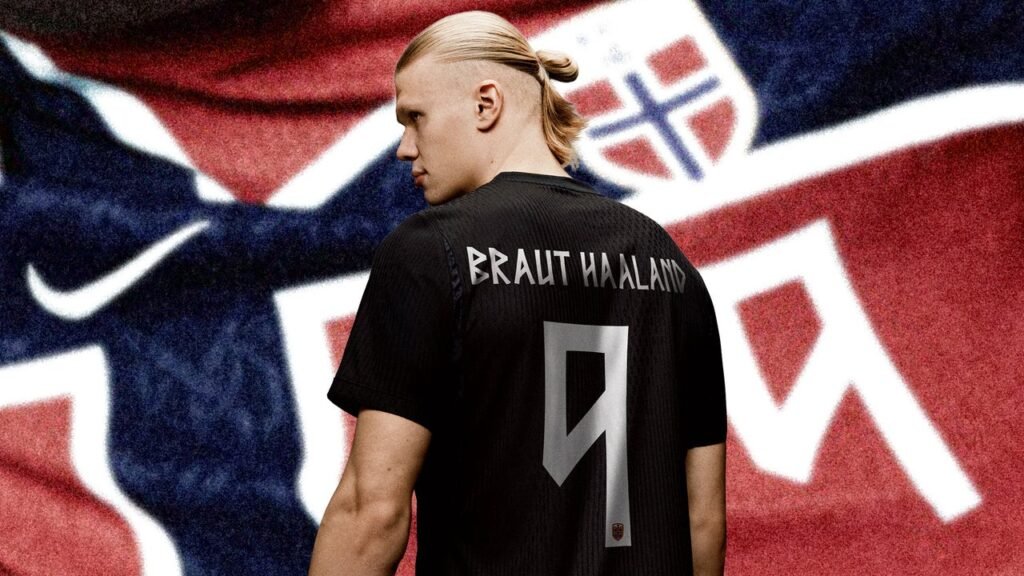
When Norway’s national soccer team first experimented with kits that used a font inspired by the runic alphabet, an ancient Scandinavian written language used by Vikings, it was too hard to read.
Characters on Norway’s 2024 jerseys were jagged, sharp, and not easily discernible. On the country’s home kits, they were beveled and even more difficult to make out, baffling plenty of first-time viewers. Plus, they didn’t adhere to FIFA’s rules for the typography of World Cup kits to be “clearly legible and distinguishable from a distance” for players, officials, spectators, and the media.
So for the 2026 World Cup, Norway’s first appearance in the tournament since 1998, Nike, which makes their kits, helped the team design a new font that balances readability with heritage.
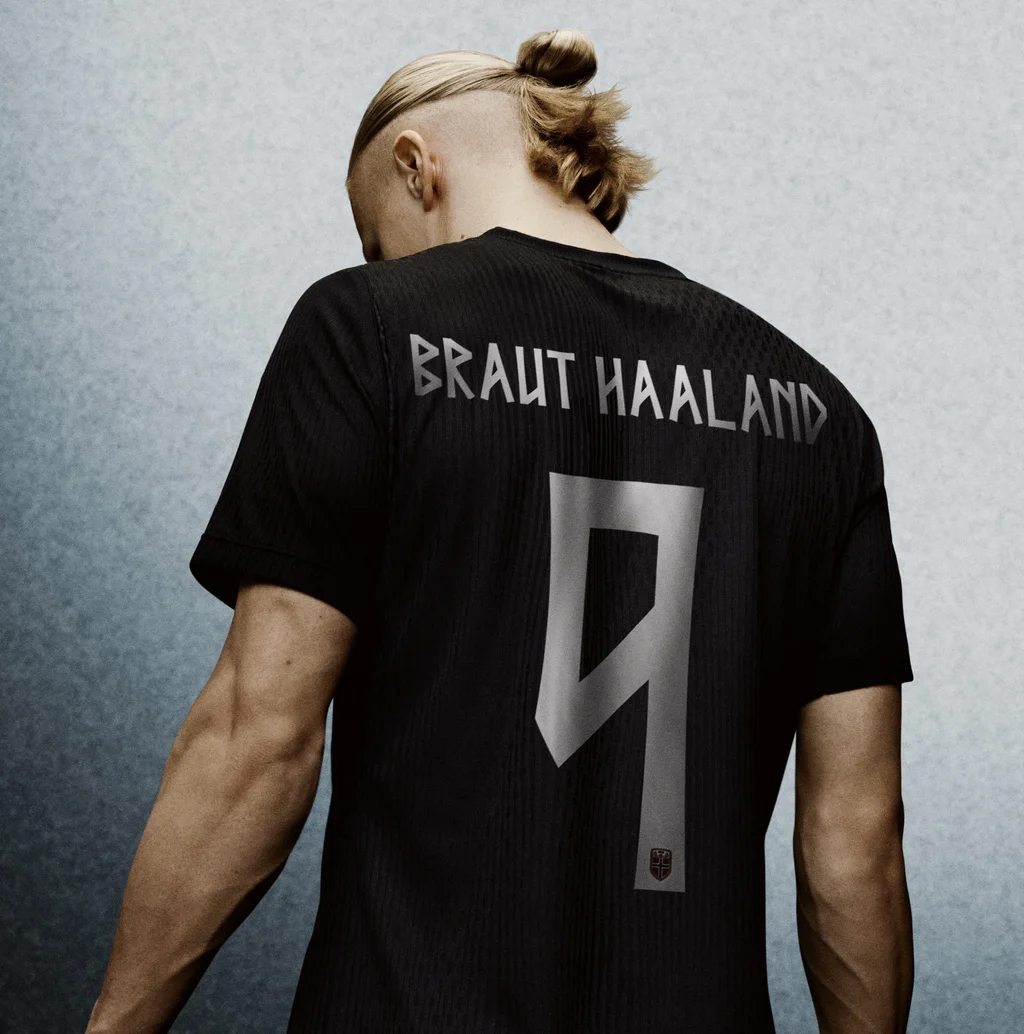
The typeface used for Norway’s uniforms is called Taakeferd, a Norwegian word meaning “journey through the fog.” It nods to the country’s return to the World Cup for the first time in 28 years.
FIFA regulations also specify the sizing and placement of player names and numbers on uniforms, and they must be in Latin characters, though they can use diacritical marks, like accents and umlauts.
With Norway headed to the quarterfinals Saturday against England, it’s clear Taakeferd passed the test. The typeface is composed of vertical or diagonal lines, which makes for distinctive, triangular shapes on curved Latin letterform in letters like B and R.
The Nike design team designed Taakeferd in partnership with the Norwegian Football Federation; the goal was to create kits that felt unmistakably Norwegian.
Norway’s home kit is based on the country’s flag—a red, white, and blue Scandinavian cross—and its away kit is all black. A Viking-style font for the names, numbers, and “Norge” written on the inside back collar sure helped.
Nike says the typeface was designed after extensive research.
“We studied the Runic alphabet’s angular strokes and sharp geometry, then adapted those design lines to work within the modern Roman [Latin] alphabet, preserving the runic DNA, while keeping the typography clean, legible on broadcast, and unmistakably contemporary,” a spokesperson for Nike’s design team tells Fast Company.
“Numerous iterations of most letters and numbers were created before landing on the final version, and readability was clearly a driving constraint through that process, not an afterthought,” the Nike spokesperson says. “The result is a custom typeface that lets every player wear a piece of Norway’s history on their back.”
Runic alphabets were used by Nordic and other European peoples until about the 16th or 17th centuries, and their tall, angular letterforms still inspire type designers today. Noto Sans Runic is an open source Google font and sans-serif typeface for texts in the historical European Runic script, while contemporary typefaces like Notdef, Nordic, and Norse approach runic-inspired shapes in their own ways.
For Norway’s national team, Taakeferd keeps the runic style intact with sharp angles and unique characters you won’t find on any other team’s jerseys, translating this typographic history for the rest of the world.